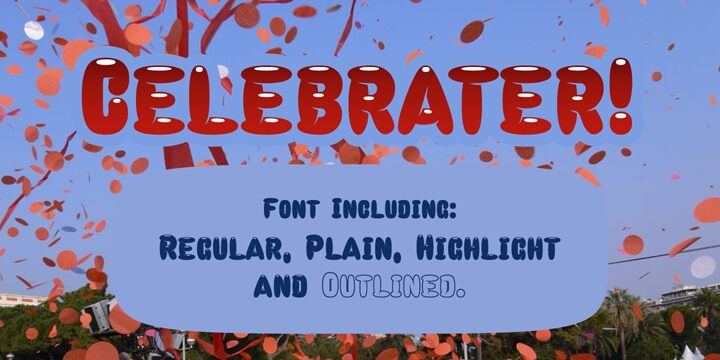
Celebrater by Måns Grebäck is a free cartoon display font with oversized, bulbous letterforms. Its uneven widths and soft, pinched curves give the letters a hand-cut bounce. Small oval highlights enliven the dense shapes.
A children's party poster is its clearest setting, with the inflated forms also fitting candy packaging and playful event signage. Those uses share a cheerful, toy-like scale that lets the lettering function as part of the illustration rather than neutral type.